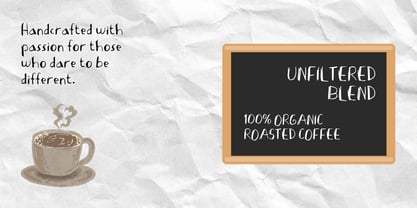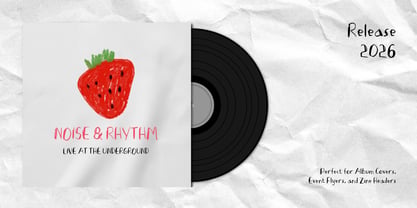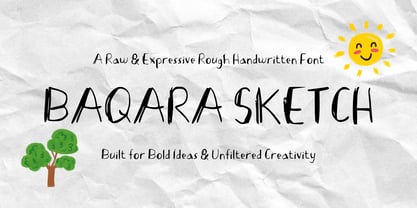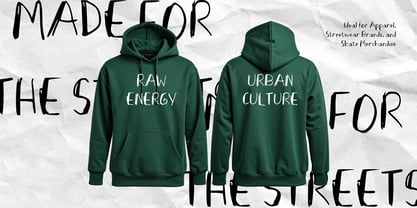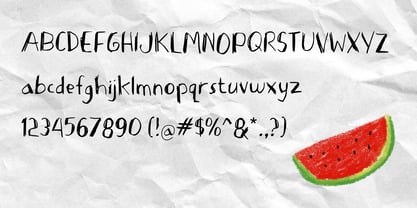
Inject raw energy, spontaneous creativity, and authentic texture into your designs with Baqara Sketch. A bold and expressive rough handwritten typeface, Baqara Sketch captures the uninhibited spirit of quick sketches, casual scribbles, and hand-drawn artwork.
Design Concept & Inspiration
Baqara Sketch was created to bring the tactile grit and human imperfection of real sketchbook drawings into the digital realm. With its uneven line weights, rough-edged strokes, and organic movement, this font breaks away from rigid typography to give your work a genuine, hand-crafted feel filled with character and attitude.
Ideal Design Uses
Baqara Sketch is built to make a striking statement across a variety of bold visual media:
- Streetwear & Merchandise: Ideal for edgy t-shirt designs, hoodies, tote bags, and skate culture apparel.
- Album Covers & Posters: Perfect for indie rock, hip-hop, podcast covers, concert flyers, and event posters.
- Branding & Logos: Gives a rebellious, artisanal, or rustic edge to lifestyle brands, coffee shops, and creative studios.
- Editorial & Packaging: Excellent for comic book titles, zines, packaging labels, and food packaging that calls for an organic look.
- Social Media Graphics: Stand out on Instagram, TikTok, and YouTube with expressive headline overlays and quote graphics.
Key Features & Pairing Suggestions
- Authentic Rough Texture: Carefully crafted to maintain a realistic sketchy stroke texture while preserving legibility.
- Complete Character Set: Includes uppercase and lowercase letters, numerals, standard punctuation, and essential symbols.
- Great Font Pairing: Combine Baqarah Sketch with clean, minimal Sans-Serif fonts (like Helvetica, Montserrat, or Futura) to create a high-contrast dynamic between raw hand-drawn titles and structured body text.
Embrace the beauty of raw expression and transform your next creative project with the fearless style of Baqara Sketch!